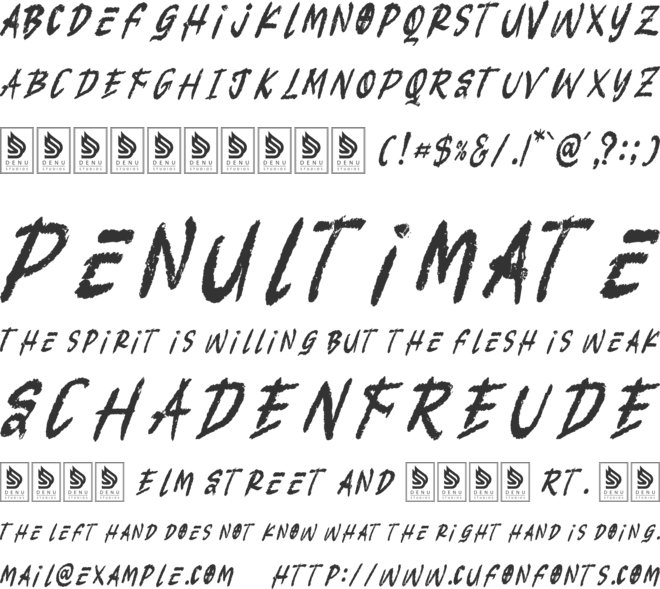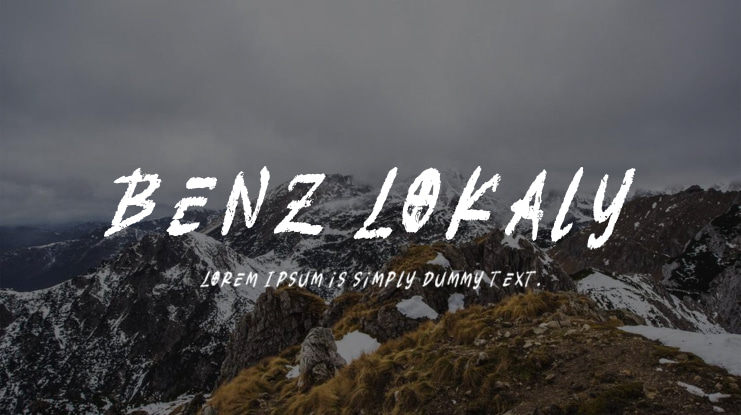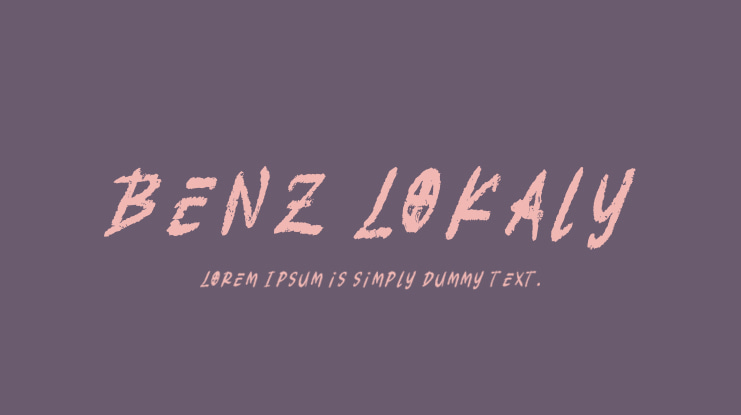
**Benz Lokaly | Hand Drawn Brush**
This hand-drawn brush font is perfect for a variety of projects, including: - Logos - Branding projects - Homeware designs - Product packaging - Mugs - Quotes - Posters - Shopping bags - T-shirts - Book covers - Name cards - Invitation and greeting cards - Labels - Photography watermarks - Special events
Basically, any project that could use a bit of hand-drawn charm would benefit from this font.